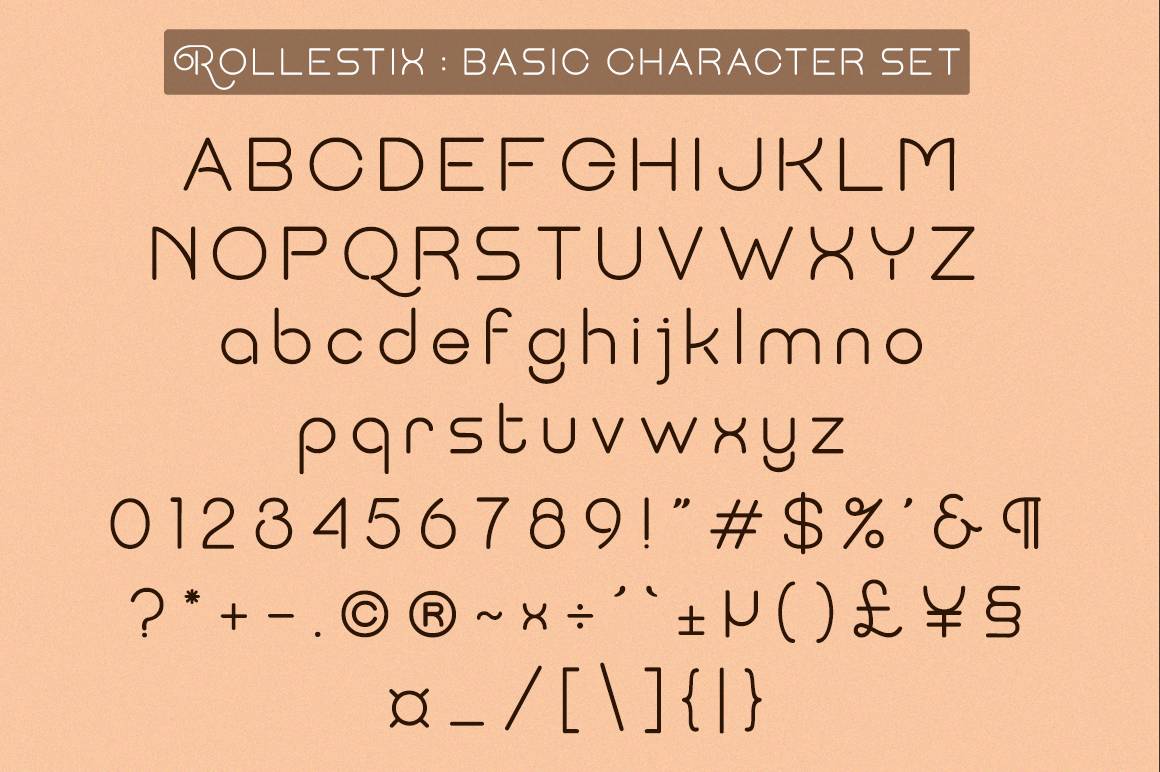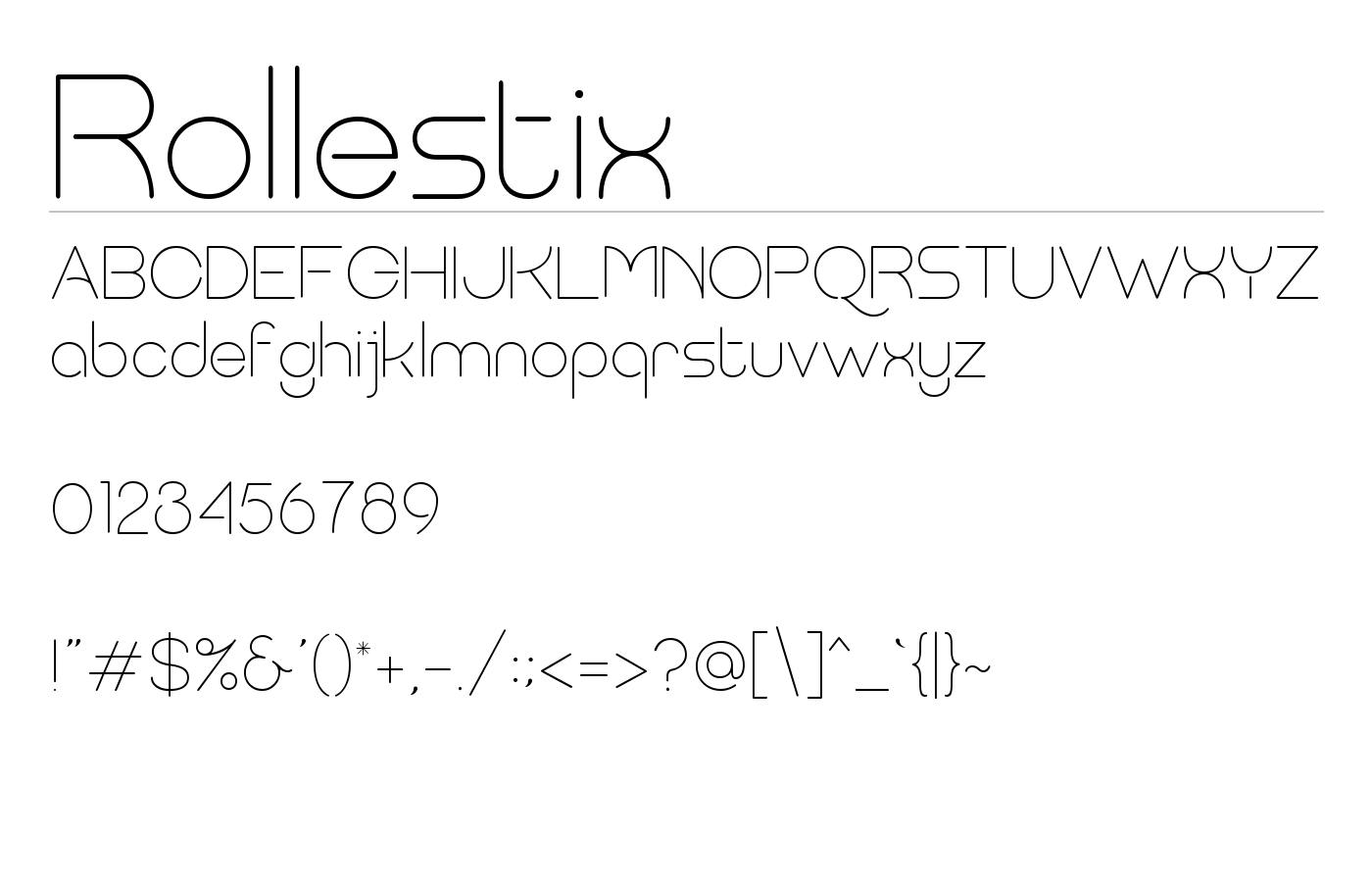
Rollestix is a sleek, modern sans serif font characterized by its thin, geometric lines and distinctive rounded edges that create a light and airy feel. Its minimalist design, with subtle stylistic quirks like the unique "Q" tail and delicate curves in letters such as "g" and "y," gives it a contemporary and elegant personality. Ideal for creative branding, editorial headlines, and clean digital interfaces, Rollestix brings a refined yet approachable look that works well in stylish, modern design contexts.
About Rollestix Font